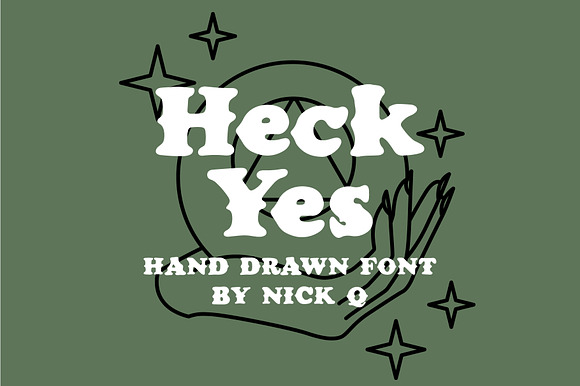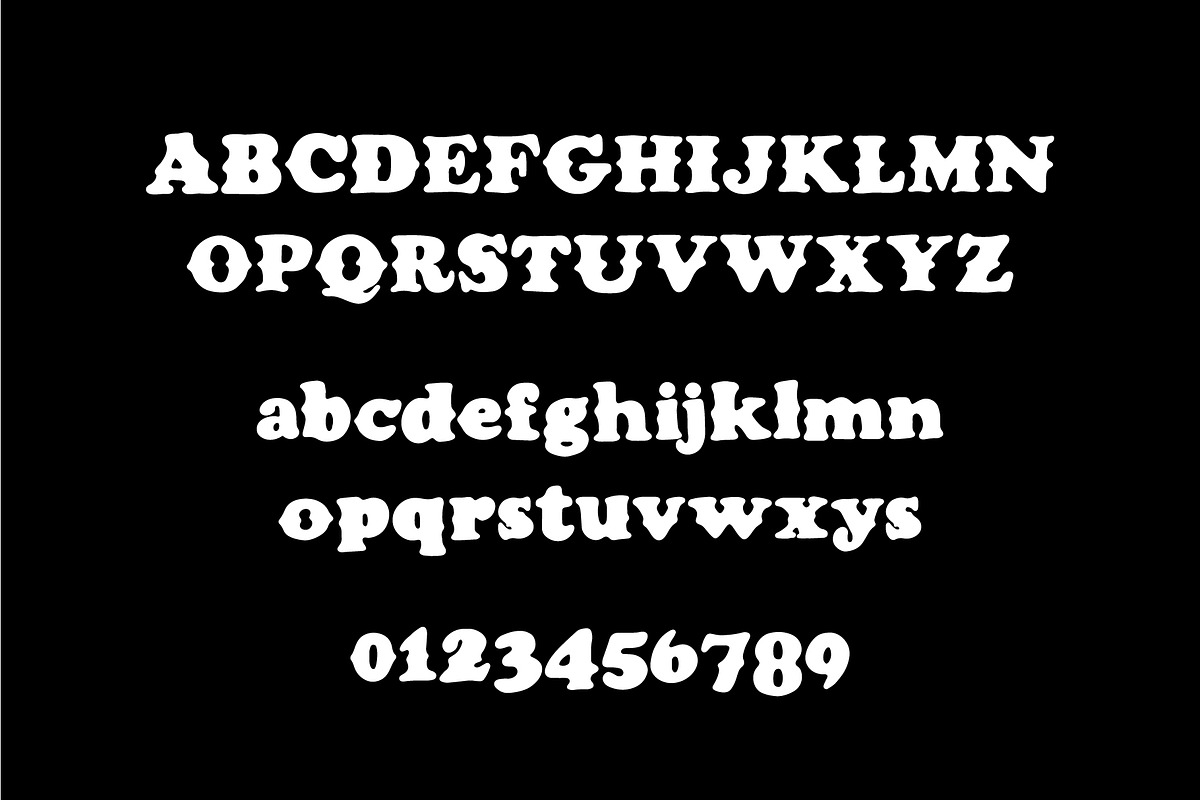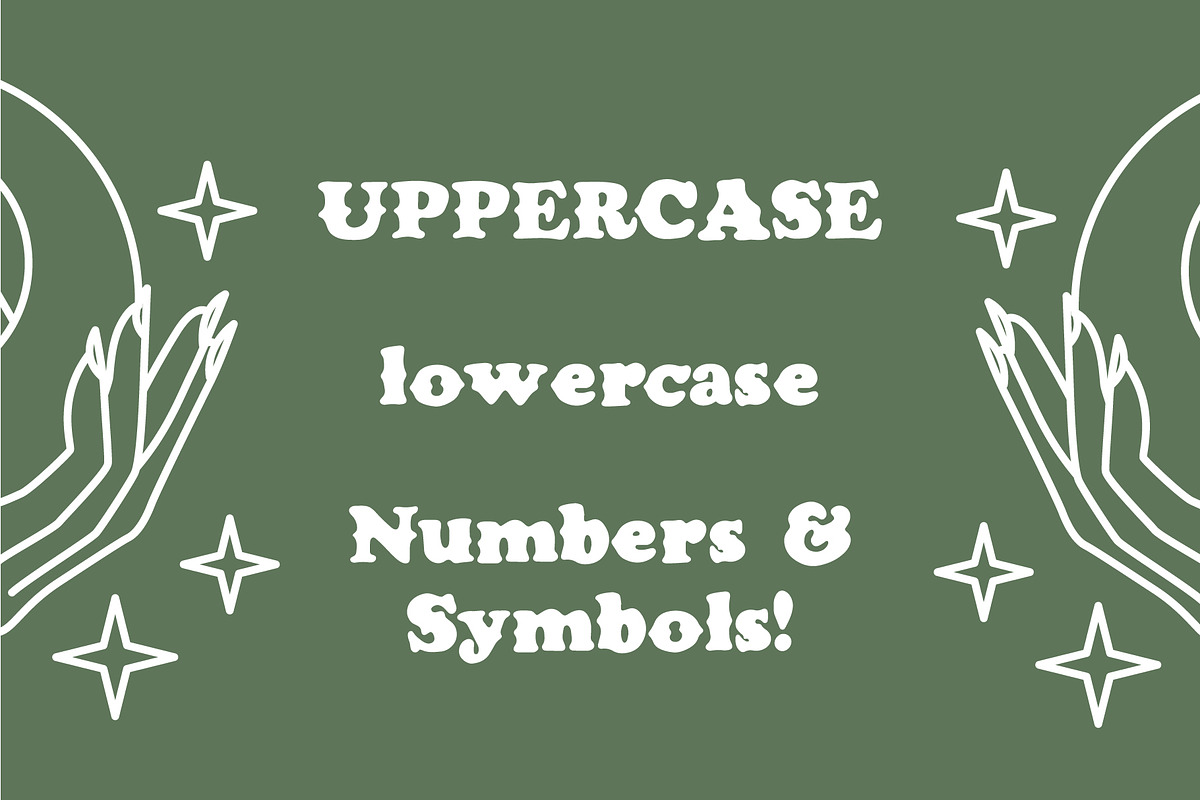
Heck Yes - Hand Drawn Font
Need a hand drawn touch to your project? Get to your results faster with my hand drawn font Heck Yes!
Perfect for posters, flyers, band merch, t-shirts and more.
Each character was hand drawn in Illustrator. Purchase includes one .otf file with all uppercase characters, lowercase characters, numbers and symbols.